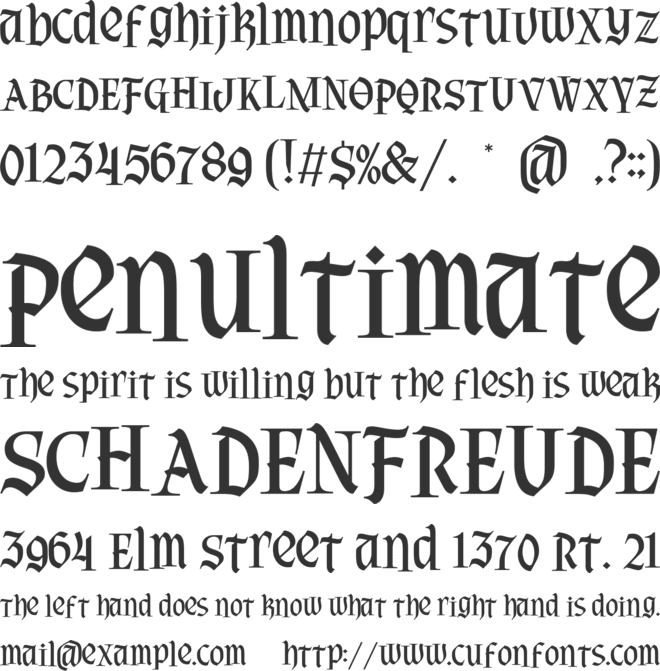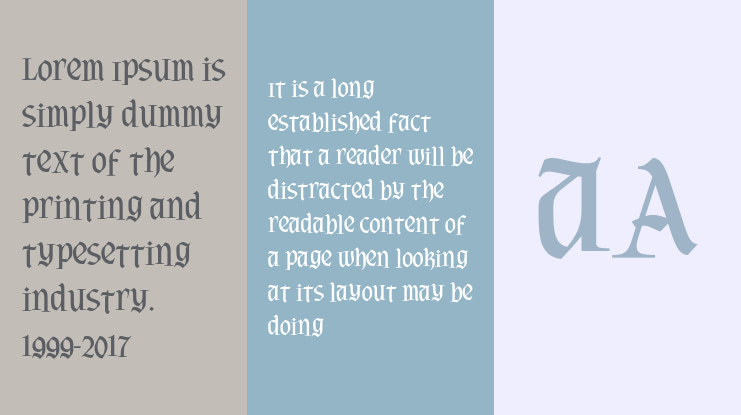
Chiron Rothen Font
Chiron Rothen - Modern Blackletter Typeface
Introducing Chiron Rothen, a modern blackletter typeface that perfectly bridges the gap between classic medieval typography and contemporary urban design. Crafted with meticulous attention to detail, this feature-rich font brings a bold, artistic, and dynamic edge to your design projects.
While Chiron Rothen retains the dramatic, gothic essence of traditional blackletter, its fluid curves and sharp angles make it incredibly versatile for today's modern aesthetics—from high-end streetwear to striking editorial designs.